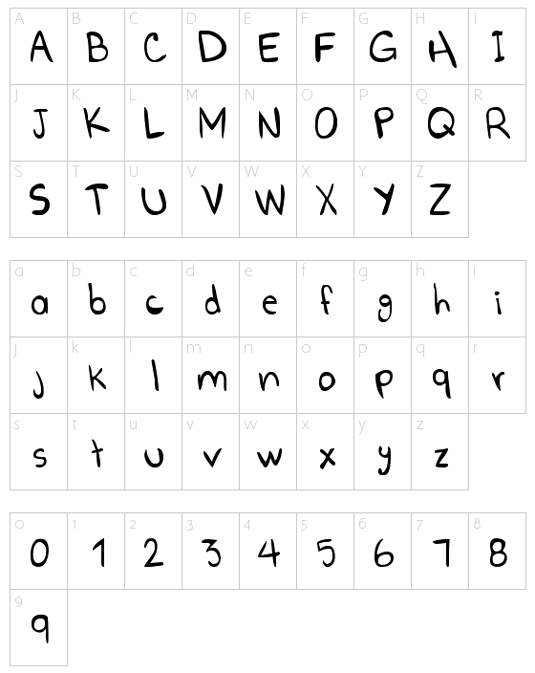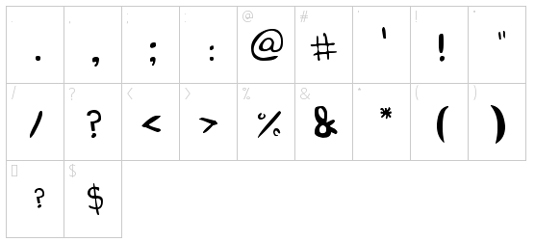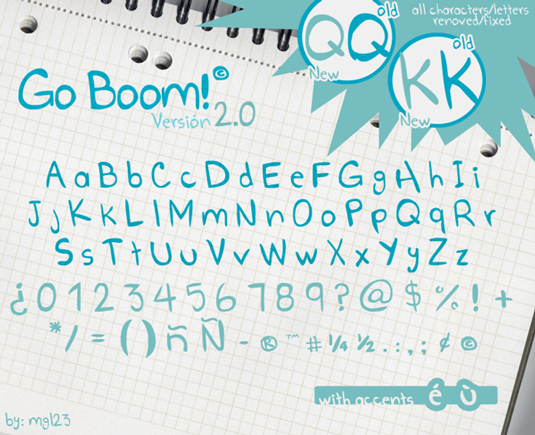
Font of the day: Go Boom!
Go Boom! by Jagdeep Singh
This comic-inspired font was created by freelance designer Jagdeep Singh. Free for personal use, the typeface comes complete with a full set of upper and lowercase characters, numbers 1-9 and a selection of special characters.